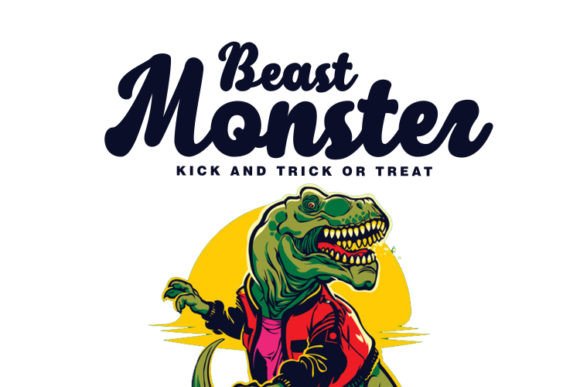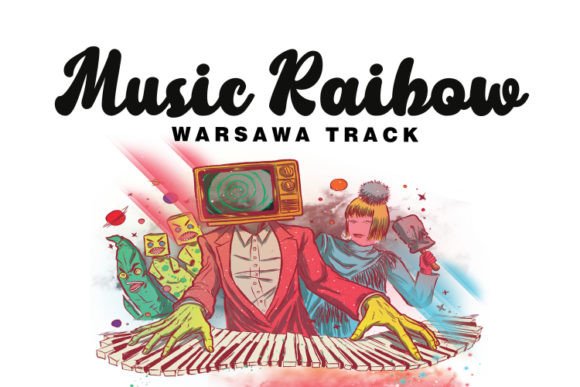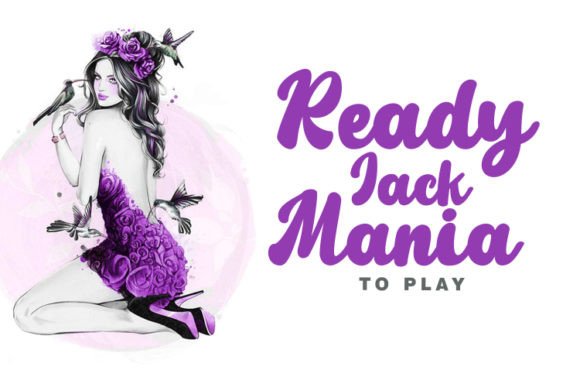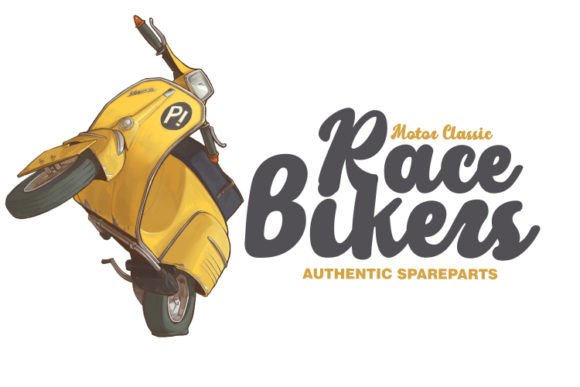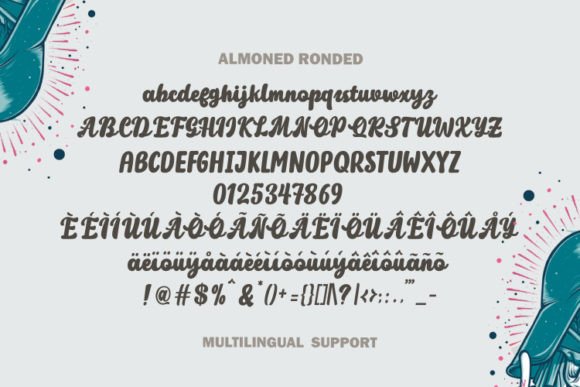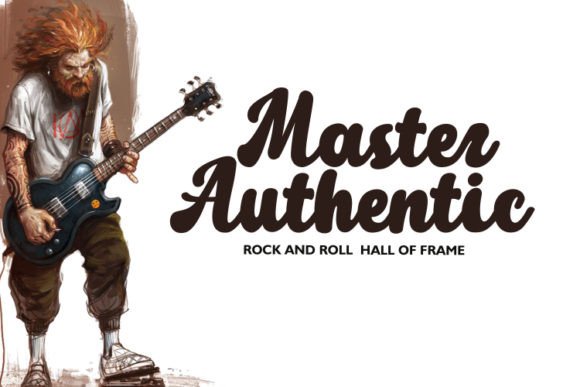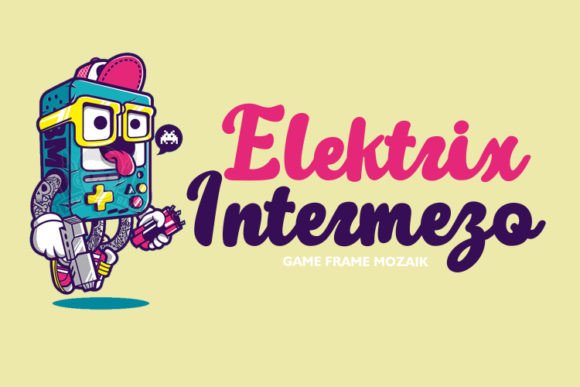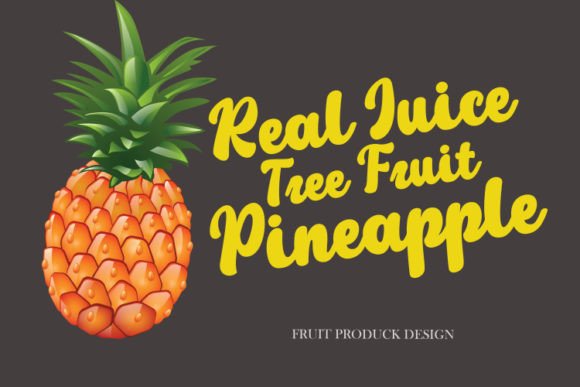
Almonet Ronded Font
Introducing Almonet Rounded, a thick-lettered handwritten font masterfully crafted to become a true favorite in your creative toolkit. With its contemporary and fresh design, Almonet Rounded is perfect for any project you wish to create. Add this font to your creative endeavors and watch them become outstanding!
The thick-lettered style of Almonet Rounded adds a bold and impactful visual element to your text. Its handwritten charm brings a touch of authenticity and uniqueness to your designs, making it well-suited for a variety of applications.
Imagine Almonet Rounded enhancing your branding projects, where its contemporary and fresh script creates a memorable and stylish presence. Picture it on posters, making a bold statement with its thick letters that capture attention. Envision it becoming the go-to font for your creative projects, adding a level of creativity and uniqueness that sets them apart.
Almonet Rounded is not just a font; it’s a design asset that elevates your projects. Its thickness and handwritten style make it adaptable to various contexts, allowing you to create outstanding designs with ease.
Add Almonet Rounded to your font collection and experience how it transforms your creative endeavors. Let it be the thick-lettered handwritten font that makes your designs truly remarkable!